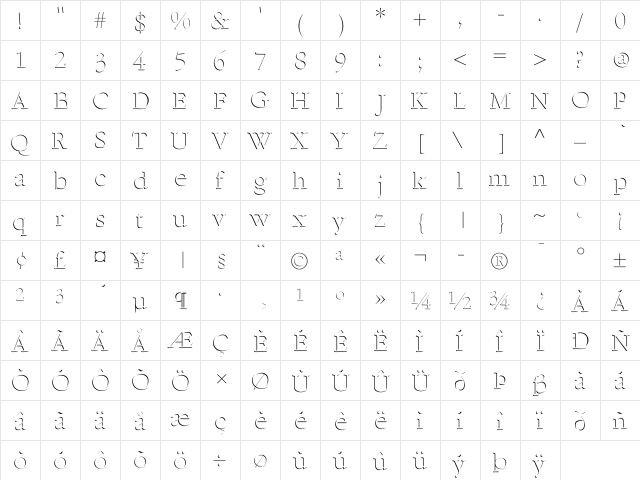
LHF Light Face Roman Regular
| Foundry | John Studden for letterhead Fonts |
| Designer | John Studden for Letterhead Fonts |
Design Context for LHF Light Face Roman Typeface
LHF Light Face Roman is a composed and adaptable typeface that performs quietly and consistently across a wide range of design contexts. The delicate stroke weight brings airiness and refinement to layouts.